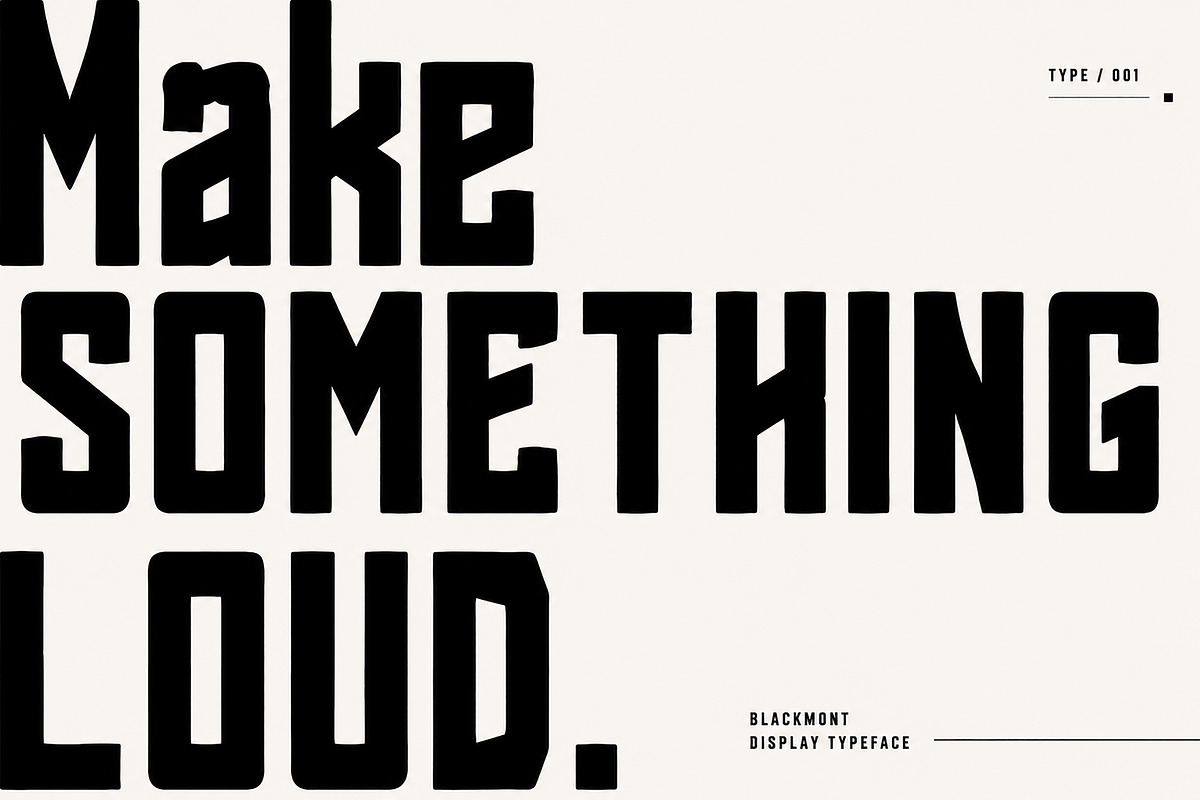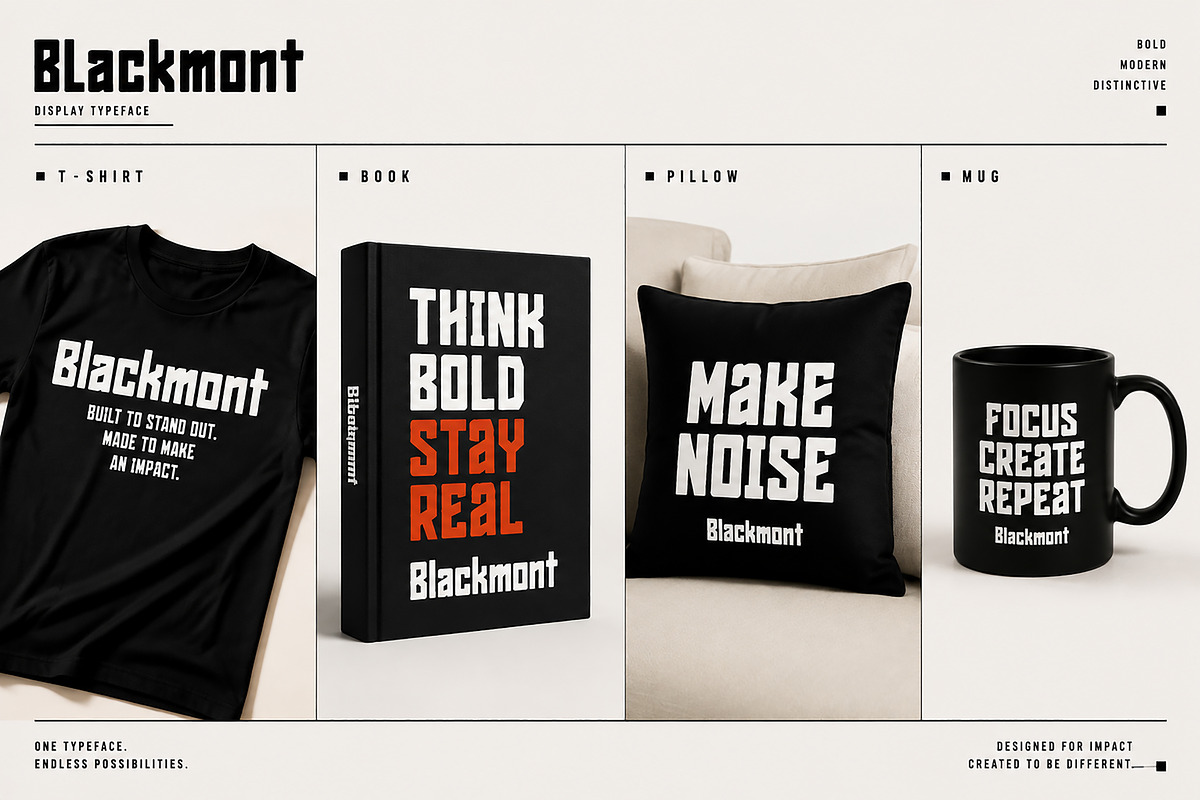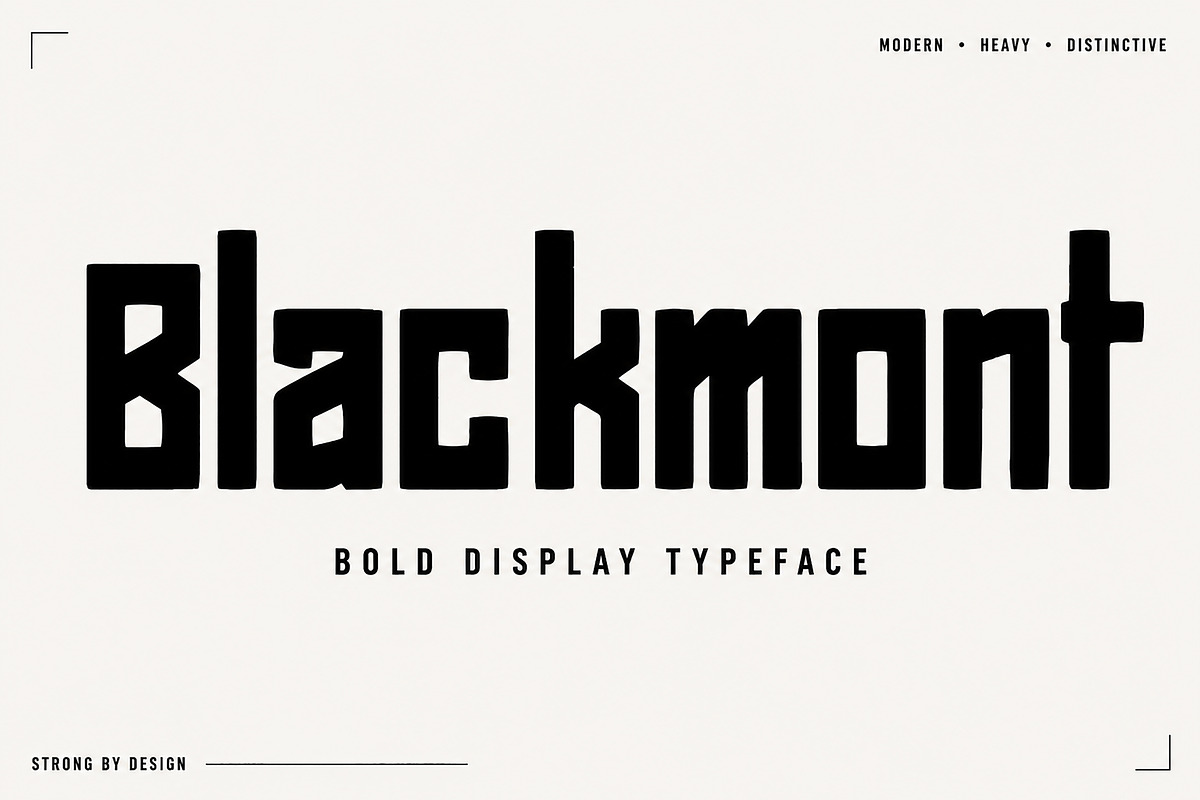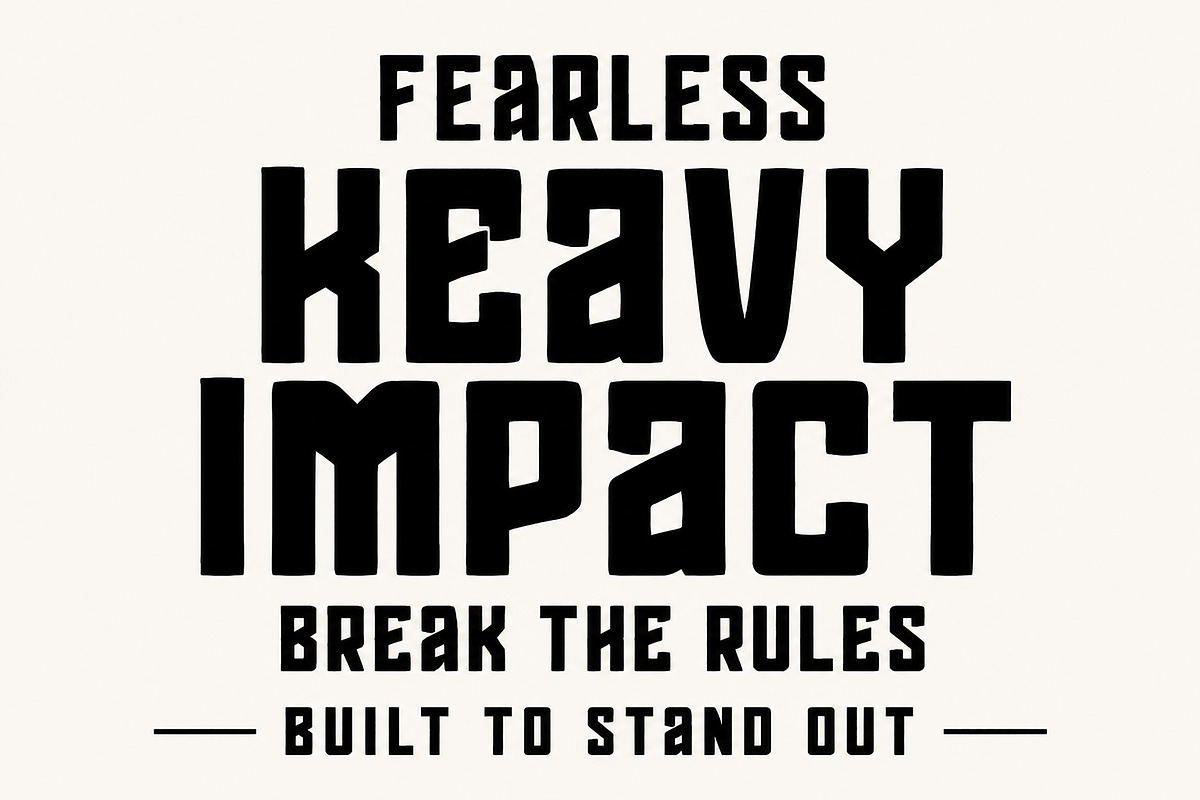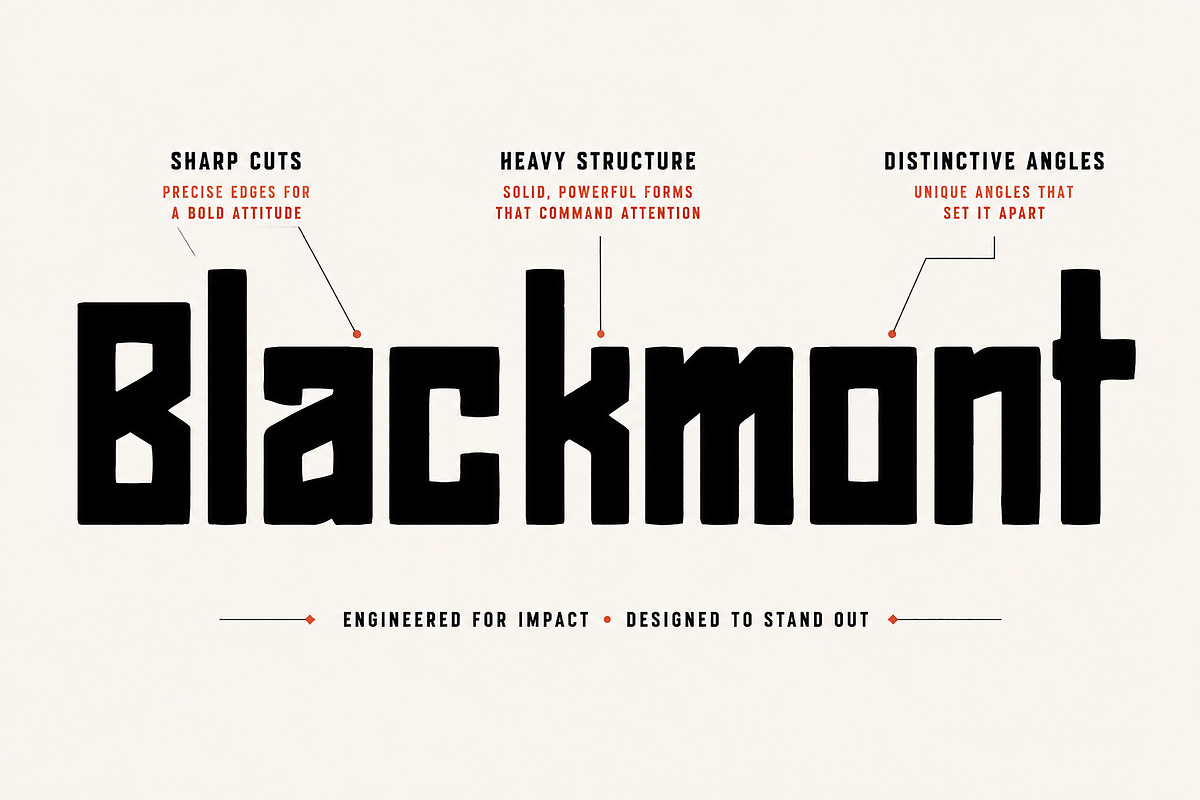
Blackmont
Blackmont - Bold Industrial Display Font | Strong Modern Typeface
Blackmont is a bold industrial display typeface featuring heavy geometric forms, sharp cuts, and a powerful modern aesthetic. Perfect for branding, posters, logos, packaging, apparel, and high-impact designs. Includes OTF format for Windows.
Blackmont is a bold and powerful display typeface designed to create strong visual impact. With its heavy structure, sharp cuts, and distinctive geometric character, Blackmont brings a modern brutalist style to your creative projects.
Designed for designers who need a strong headline font, Blackmont works perfectly for branding, posters, logos, packaging, editorial designs, merchandise, social media graphics, and other high-impact visual projects.
Its unique shapes and confident appearance make it ideal for projects that need a bold personality and memorable typography.
✔ Bold Display Typeface
✔ Strong Industrial & Modern Style
✔ Unique Geometric Letterforms
✔ High Impact Headline Design
✔ Perfect for Branding & Identity Projects
✔ Suitable for Posters, Logos & Editorial Design
✔ Great for Merchandise Design
Recommended Uses:
Brand Identity
Posters
Magazine Covers
Headlines
Apparel Design
Album Artwork
Creative Advertising